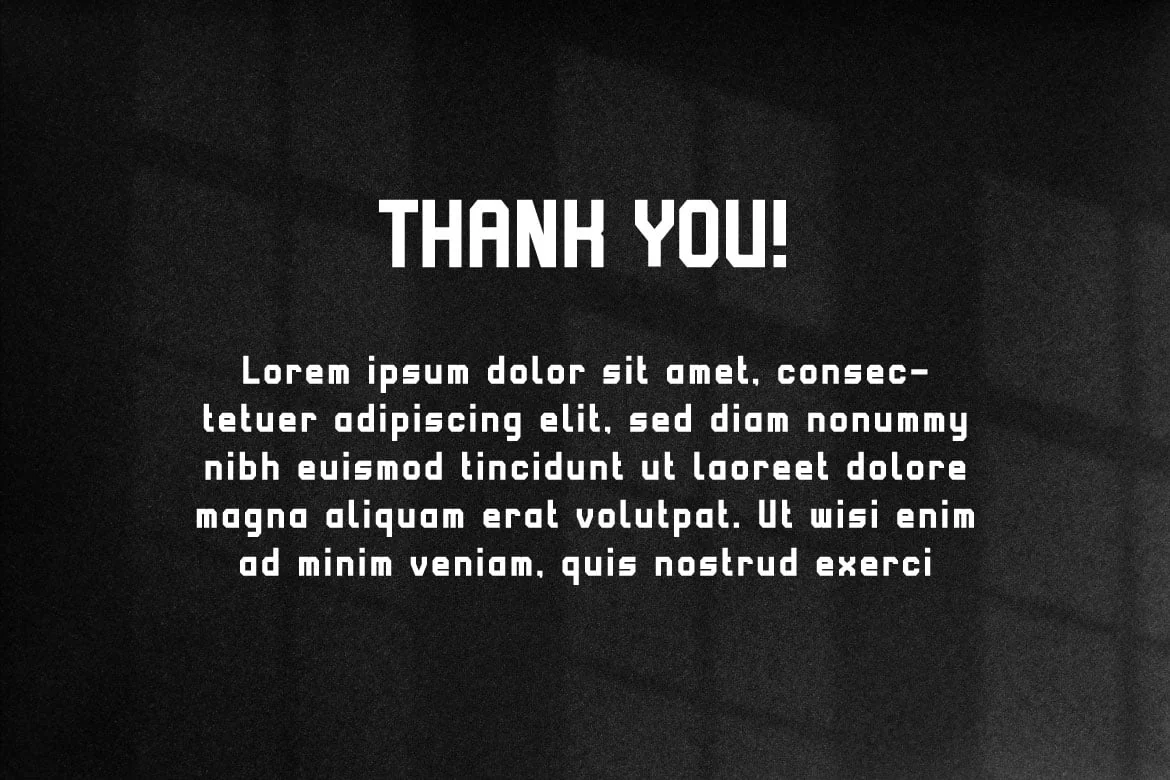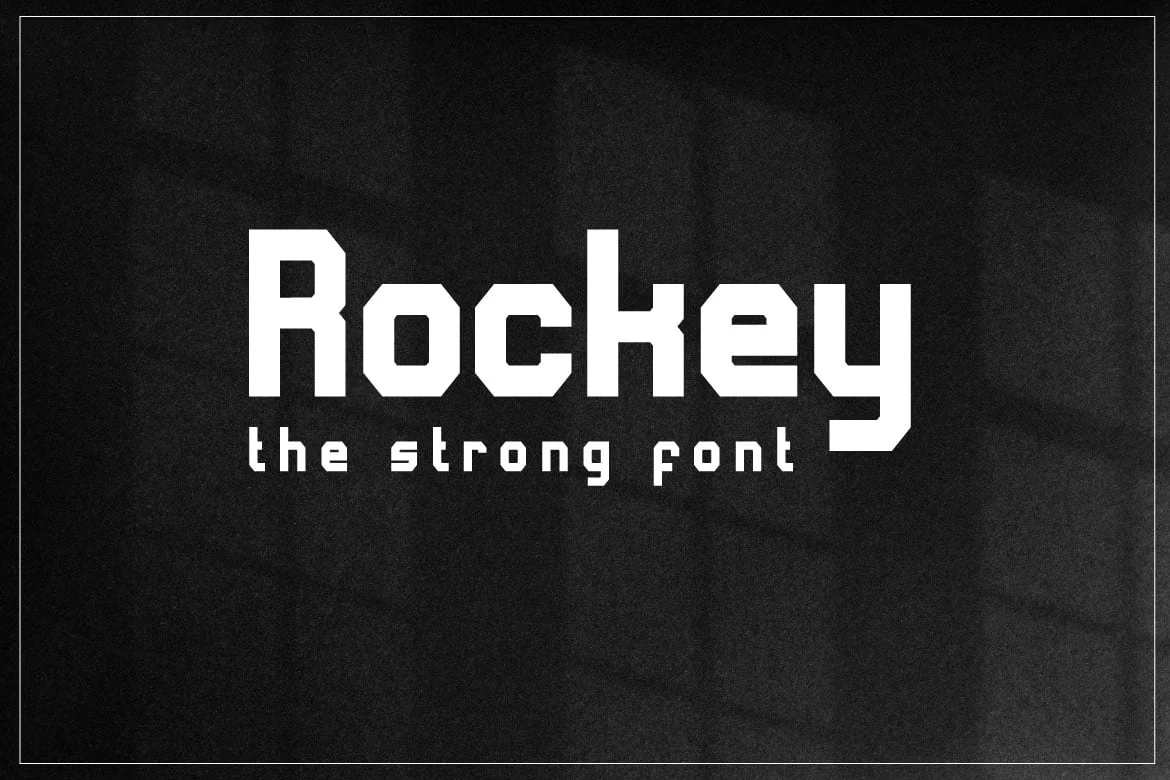
Rockey – Strong Font
If you are looking for a bold and strong display font, meet Rockey
Rockey is perfect for any works, such as card, book title, headline of news, banner, flyer, stationery and many more. It also can be used in Any scale work.